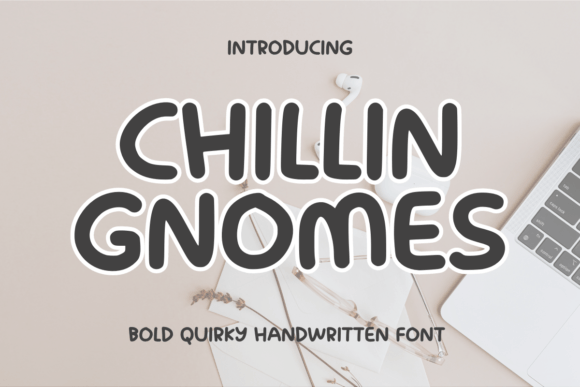
Introducing Chillin Gnomes Font: The Bold and Quirky Handwritten Font You Need
In the world of typography, fonts play a crucial role in conveying the tone and personality of a brand or design. With the vast array of fonts available, it can be challenging to find the perfect one that stands out from the rest. However, if you’re looking for a bold and quirky handwritten font that can elevate your creations, look no further than Chillin Gnomes Font.
What is Chillin Gnomes Font?
Chillin Gnomes is a bold, quirky handwritten font designed to add a touch of personality to any project. Its unique and playful style makes it an excellent choice for designers, crafters, and DIY enthusiasts looking to create eye-catching designs. Whether you’re working on a branding project, creating social media graphics, or designing a craft project, Chillin Gnomes Font is sure to make a statement.
Key Features of Chillin Gnomes Font
So, what sets Chillin Gnomes Font apart from other fonts? Here are some of its key features:
- Bold and Quirky Style: Chillin Gnomes Font boasts a bold and quirky style that’s sure to grab attention.
- Handwritten Feel: The font has a handwritten feel that gives it a personal and friendly touch.
- Versatile: Chillin Gnomes Font can be used on a wide range of projects, from branding and advertising to crafting and DIY.
- Easy to Read: Despite its bold style, Chillin Gnomes Font is easy to read, making it perfect for body text and headings.
Benefits of Using Chillin Gnomes Font
So, why should you choose Chillin Gnomes Font for your next project? Here are some benefits of using this amazing font:
- Stand Out from the Crowd: With Chillin Gnomes Font, you can create designs that stand out from the crowd and grab attention.
- Add Personality to Your Designs: The font’s playful and quirky style allows you to add personality to your designs and convey your brand’s tone.
- Increase Engagement: The unique style of Chillin Gnomes Font can help increase engagement and encourage interaction with your audience.
- Save Time: With Chillin Gnomes Font, you can create professional-looking designs quickly and easily, saving you time and effort.
Use Cases for Chillin Gnomes Font
Chillin Gnomes Font is a versatile font that can be used on a wide range of projects. Here are some use cases to get you started:
- Branding and Advertising: Use Chillin Gnomes Font to create eye-catching logos, posters, and advertisements that grab attention.
- Social Media Graphics: The font is perfect for creating social media graphics, such as Facebook posts, Instagram stories, and Twitter headers.
- Crafting and DIY: Chillin Gnomes Font is ideal for crafting and DIY projects, such as making signs, labels, and cards.
- Web Design: Use the font to create engaging and interactive web designs that stand out from the crowd.
Tips for Using Chillin Gnomes Font
Here are some tips for using Chillin Gnomes Font effectively:
- Use it Boldly: Chillin Gnomes Font is designed to be bold and eye-catching, so don’t be afraid to use it in large sizes.
- Mix and Match: Experiment with different font combinations to create unique and interesting designs.
- Keep it Simple: Don’t overcomplicate your design – keep it simple and let the font do the talking.
- Experiment with Colors: Try out different colors and textures to add depth and interest to your design.
In conclusion, Chillin Gnomes Font is a bold and quirky handwritten font that’s perfect for designers, crafters, and DIY enthusiasts looking to add a touch of personality to their projects. With its unique style, versatility, and ease of use, Chillin Gnomes Font is sure to become a valuable asset to your font library. So why wait? Download Chillin Gnomes Font today and start creating amazing designs that stand out from the crowd!